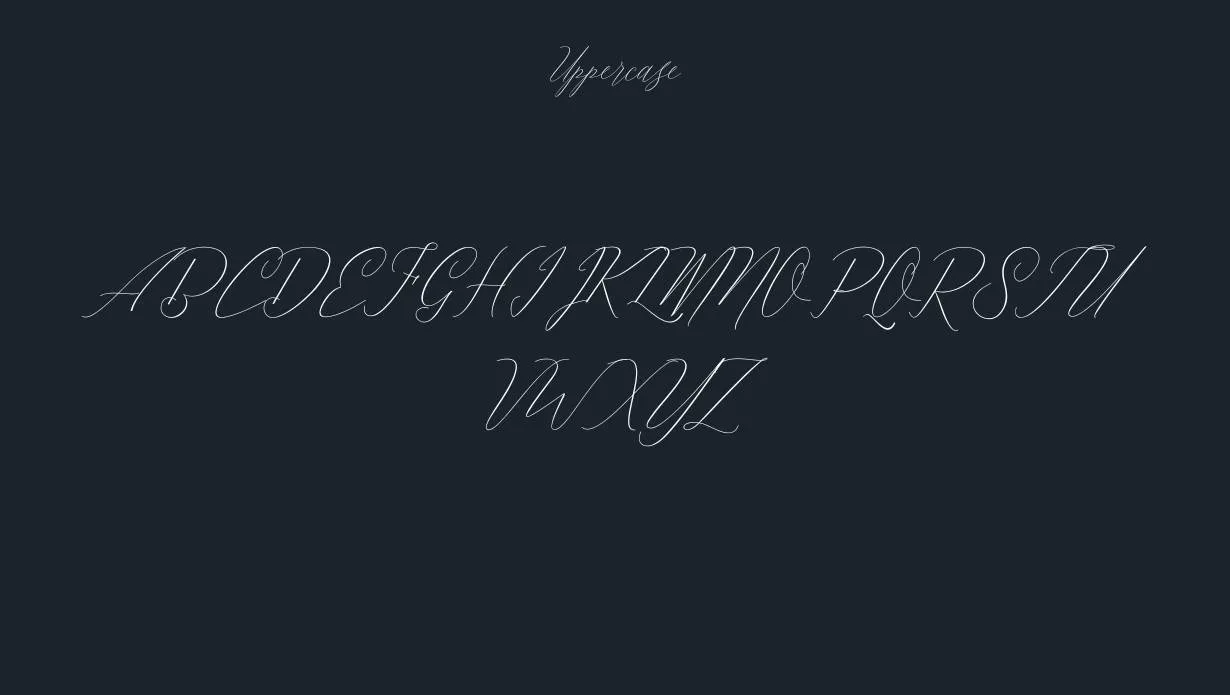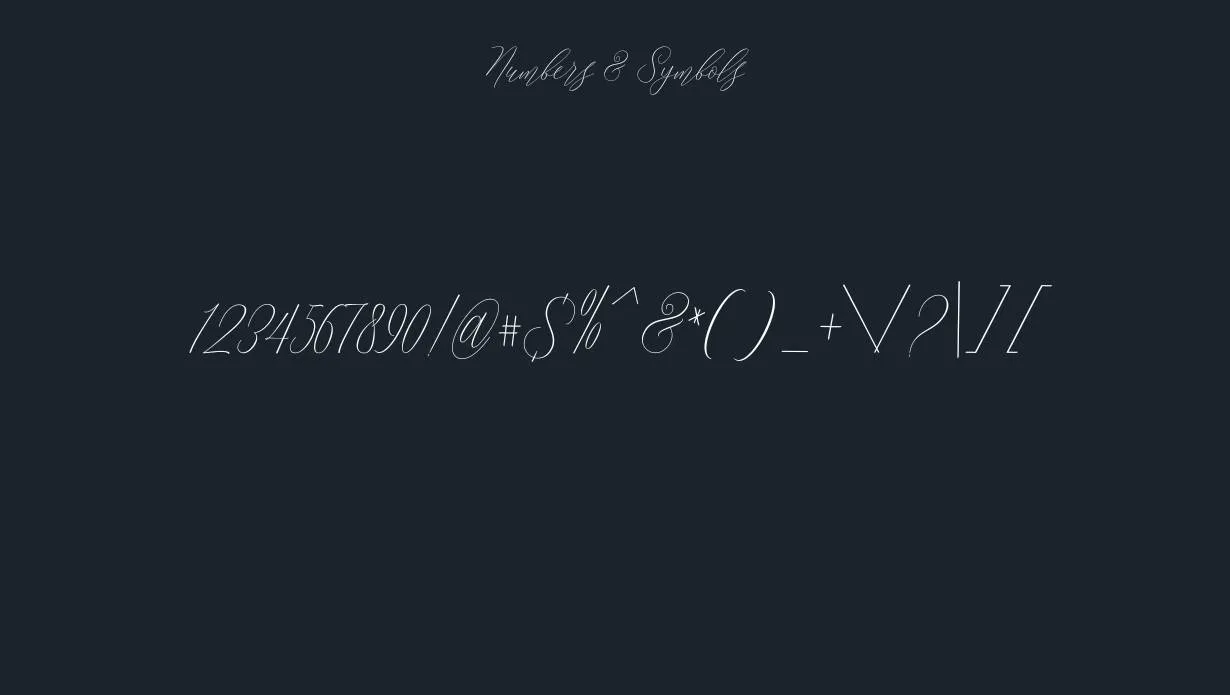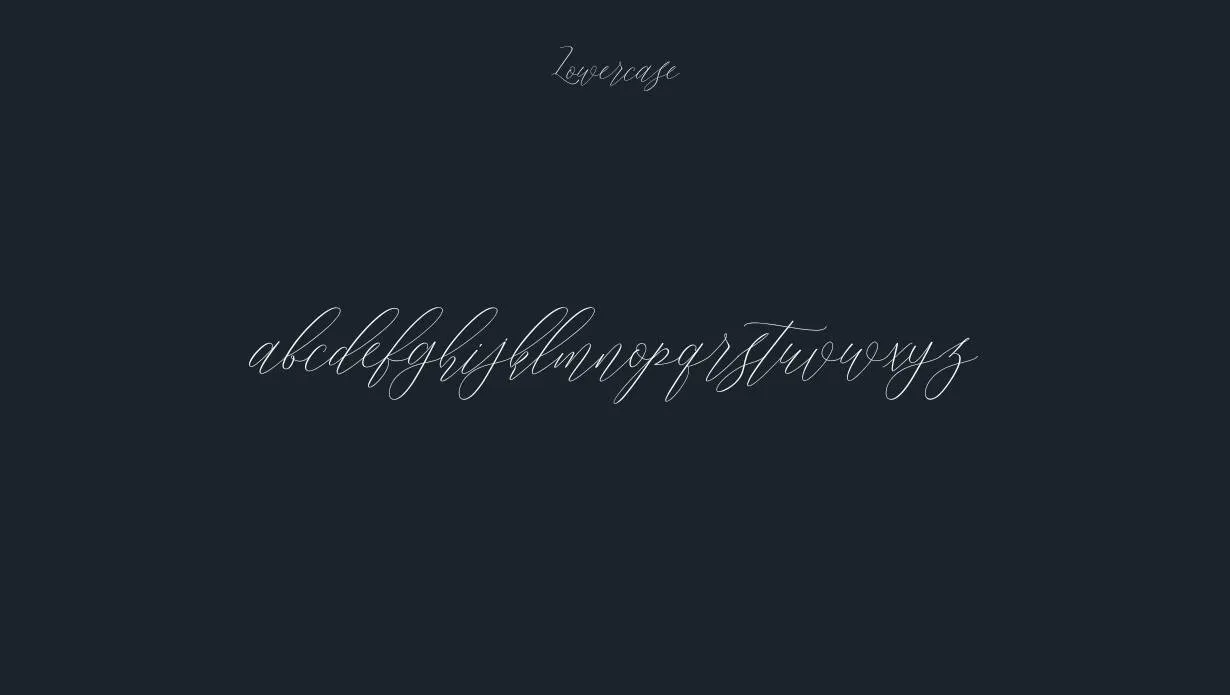
Daniela Font was designed by Pollem Studios. The look of this font is very classy and you can use it for making different types of attractive projects. It contains 254 characters and 219 glyphs. Languages supported are Latin and Symbols.
| Name | Daniela Font |
| Designer | Pollem Studios |
Daniela Font Family